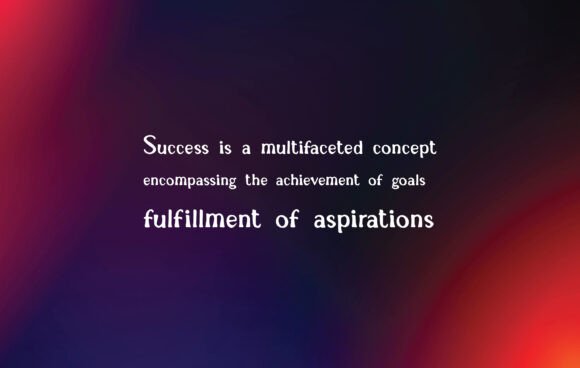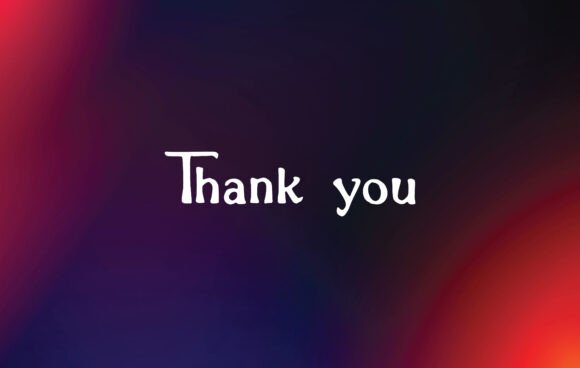
Belen Font: Elevate Your Creative Projects with this Lovely Handwritten Font
Are you a designer or crafter looking for a font that can take your creative ideas to the next level? Look no further than Belen Font, a beautiful handwritten font that is sure to impress. With its unique and elegant style, Belen Font is the perfect choice for creating eye-catching logos, branding, and quotes that will leave a lasting impression on your audience.
What Makes Belen Font So Special?
Belen Font is a lovely and beautiful handwritten font that is designed to add a touch of elegance and sophistication to any creative project. Its unique style is characterized by flowing lines, delicate curves, and a warm, inviting feel that is sure to capture the attention of your audience. Whether you’re working on a logo, branding, or quote, Belen Font is the perfect choice for adding a personal touch that will make your project stand out.
Key Features of Belen Font
So, what makes Belen Font so special? Here are just a few of its key features:
- Unique and Elegant Style: Belen Font has a one-of-a-kind style that is both elegant and sophisticated, making it perfect for high-end branding and design projects.
- Handwritten with Love: This font is carefully crafted by hand, giving it a warm and inviting feel that is sure to connect with your audience.
- Versatile and Flexible: Belen Font is highly versatile and can be used for a wide range of creative projects, from logos and branding to quotes and more.
- Easy to Read: Despite its elegant style, Belen Font is highly legible and easy to read, making it perfect for use in body text and other applications.
Why Choose Belen Font?
So, why should you choose Belen Font for your next creative project? Here are just a few reasons:
- Stand Out from the Crowd: With Belen Font, you can create unique and eye-catching designs that will help you stand out from the competition.
- Add a Personal Touch: This font adds a personal touch to any design project, making it perfect for crafters and designers who want to add a human element to their work.
- Save Time and Effort: With Belen Font, you can create professional-looking designs in no time, saving you time and effort in the process.
How to Use Belen Font
Using Belen Font is easy! Here are just a few tips to get you started:
- Pair it with Other Fonts: Belen Font pairs well with other fonts, so feel free to experiment with different combinations to find the perfect look for your project.
- Use it for Headings and Titles: This font is perfect for use in headings and titles, where its elegant style can really shine.
- Add a Pop of Personality: Use Belen Font to add a pop of personality to your design projects, whether it’s a logo, branding, or quote.
In conclusion, Belen Font is a beautiful and elegant handwritten font that is sure to take your creative ideas to the next level. With its unique style, versatility, and ease of use, it’s the perfect choice for designers and crafters who want to create eye-catching logos, branding, and quotes that will leave a lasting impression on their audience. So why wait? Download Belen Font today and start elevating your creative projects to new heights!